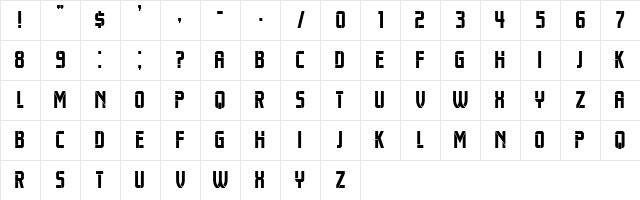
Trueborn Regular
Design Context for Trueborn
Trueborn is a composed and adaptable typeface that performs quietly and consistently across a wide range of design contexts.